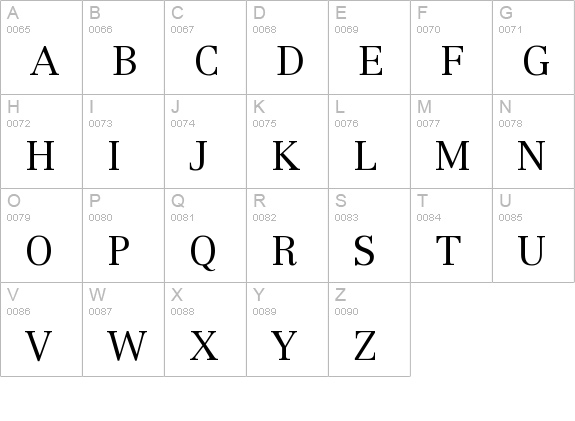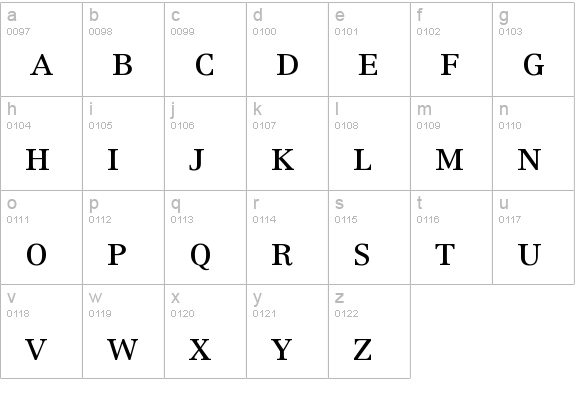
Century Reprise LightOldStyle SSi Light Small Caps Font Details
Century Reprise LightOldStyle SSi Light Small Caps is a refined, elegant variant in the Century typeface family \xE2\x80\x94 well suited to elegant body text, refined sub-headings, and luxury branding.
Century Reprise LightOldStyle SSi Light Small Caps font is a timeless and elegant typeface that exudes sophistication and charm. With its delicate strokes and classic design, this font is perfect for adding a touch of refinement to any project. Its small caps variant adds a unique and stylish flair, making it ideal for headings, titles, and other prominent text elements. The best part? Century Reprise LightOldStyle SSi Light Small Caps font is available for free download at FontsMarket.com. Whether you're working on a personal project, professional design, or just looking to enhance your typography collection, this font is a must-have. Don't miss out on the opportunity to elevate your designs with this exquisite typeface. Download it now and unleash your creativity!